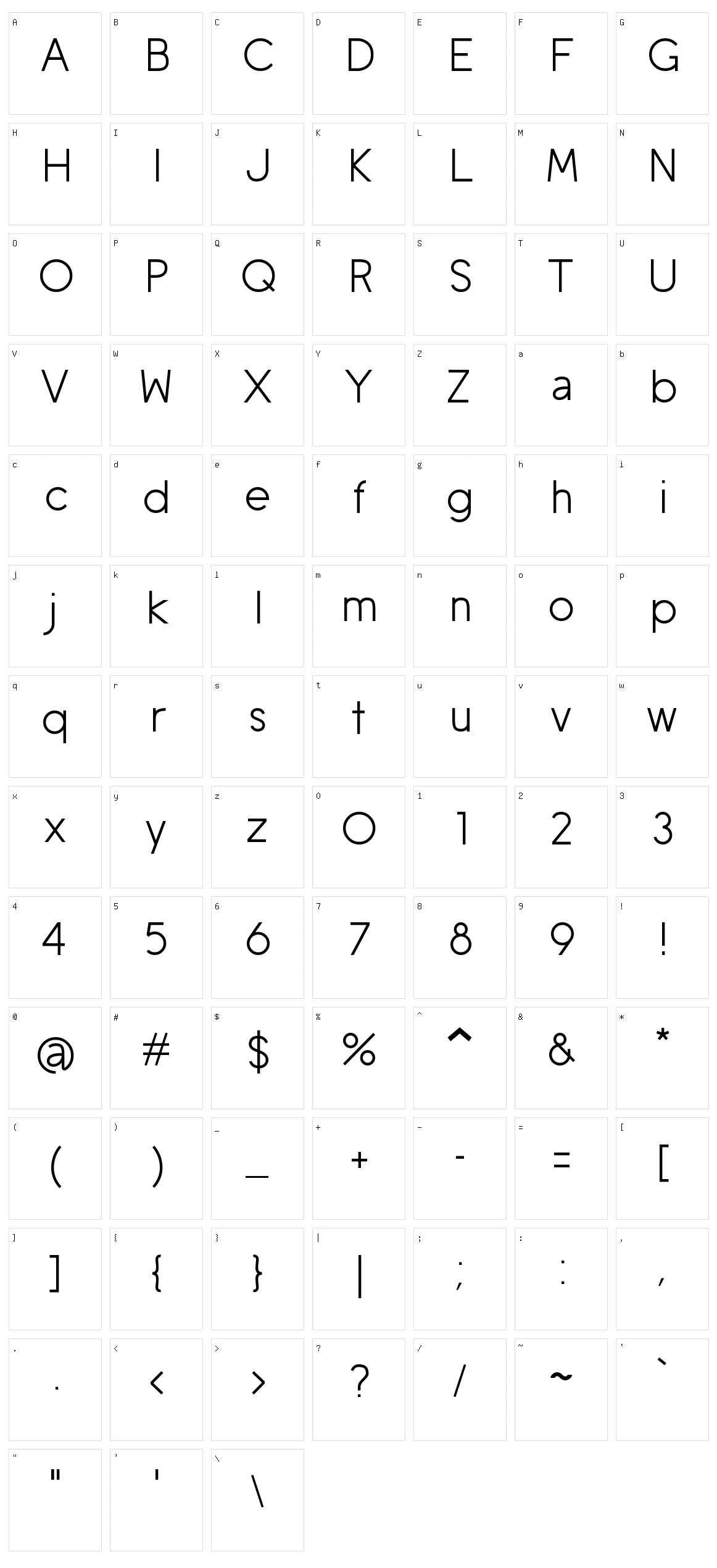
Mobile Sans font was created by Nelson Fraga.
This font was specially made to facilitate the reading of texts,
and make them more enjoyable and comfortable.